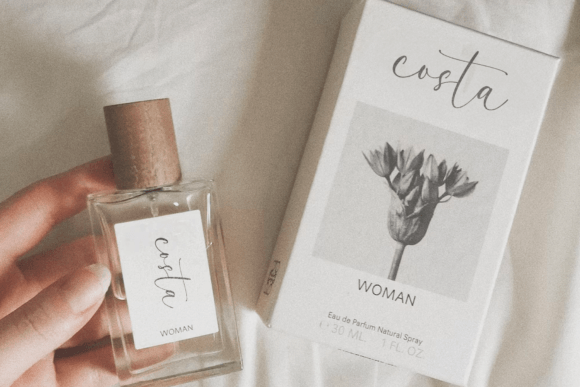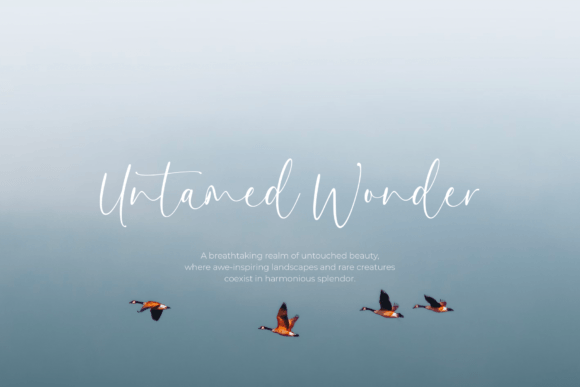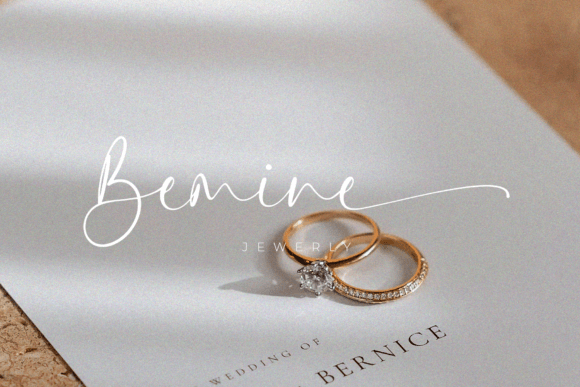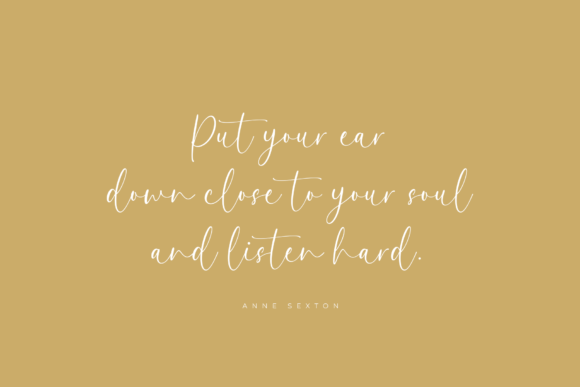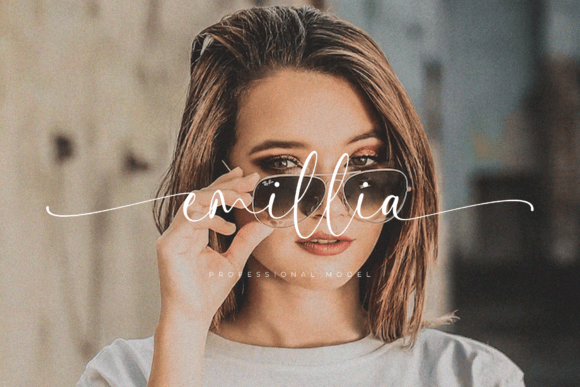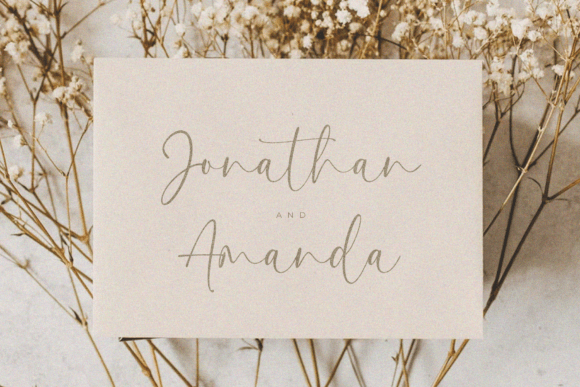
Affection Font: The Charmish Calligraphy Font for Your Creative Projects
Are you looking for a font that exudes a laid-back charm and effortlessly draws attention? Look no further than Affection Font, a beautiful calligraphy font that is perfect for a variety of creative projects. In this article, we’ll take a closer look at Affection Font, its features, and how you can use it to elevate your designs.
What is Affection Font?
Affection Font is a charming and stylish calligraphy font that is designed to add a touch of elegance and sophistication to your designs. With its effortless swashes and simple yet captivating letterforms, Affection Font is the perfect choice for anyone looking to create beautiful and eye-catching text.
Key Features of Affection Font
Affection Font comes with a range of features that make it stand out from other calligraphy fonts. Some of its key features include:
• Effortless Swashes: Affection Font features beautiful, flowing swashes that add a touch of elegance to your text.
• Simple yet Captivating Letterforms: The letterforms in Affection Font are simple yet captivating, making it easy to read and understand.
• Laid-Back Charm: Affection Font has a laid-back charm that effortlessly draws attention and adds a touch of sophistication to your designs.
Uses of Affection Font
Affection Font is a versatile font that can be used for a variety of creative projects, including:
• Wedding Invitations: Affection Font is perfect for wedding invitations, adding a touch of elegance and sophistication to your special day.
• Branding: Use Affection Font to create beautiful and eye-catching branding materials, such as logos, business cards, and letterheads.
• Cards: Affection Font is great for creating beautiful and personalized cards for special occasions, such as birthdays, anniversaries, and holidays.
• Social Media: Use Affection Font to create eye-catching social media graphics, such as Facebook posts, Instagram stories, and Twitter headers.
Benefits of Using Affection Font
There are many benefits to using Affection Font in your creative projects. Some of the benefits include:
• Elegance and Sophistication: Affection Font adds a touch of elegance and sophistication to your designs, making them stand out from the crowd.
• Easy to Read: The simple yet captivating letterforms in Affection Font make it easy to read and understand, even at small sizes.
• Versatility: Affection Font can be used for a variety of creative projects, making it a great addition to your font library.
Tips for Using Affection Font
Here are some tips for using Affection Font in your creative projects:
• Use it Sparingly: Affection Font is a beautiful font, but it can be overwhelming if used too much. Use it sparingly to add a touch of elegance and sophistication to your designs.
• Pair it with Other Fonts: Affection Font pairs well with other fonts, such as sans-serif fonts and script fonts. Experiment with different pairings to find the one that works best for your design.
• Experiment with Swashes: The swashes in Affection Font are a beautiful feature. Experiment with different swash styles to add a touch of elegance and sophistication to your designs.
Affection Font is a beautiful and charming calligraphy font that is perfect for a variety of creative projects. With its effortless swashes and simple yet captivating letterforms, Affection Font exudes a laid-back charm that effortlessly draws attention. Whether you’re designing a wedding invitation, branding materials, or social media graphics, Affection Font is a great choice. So why not give it a try and see how it can elevate your designs?